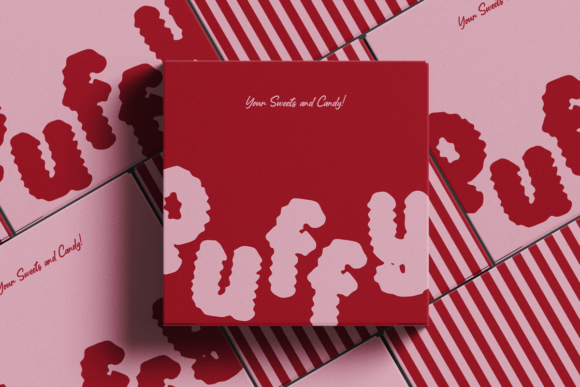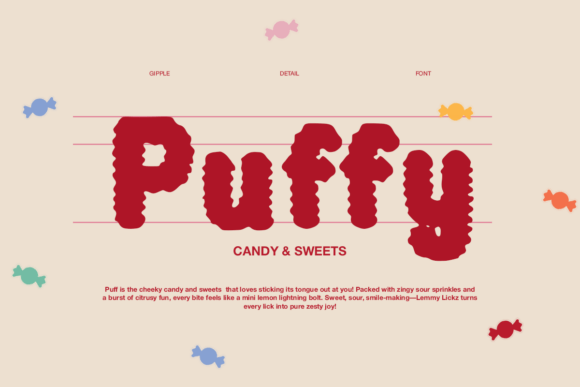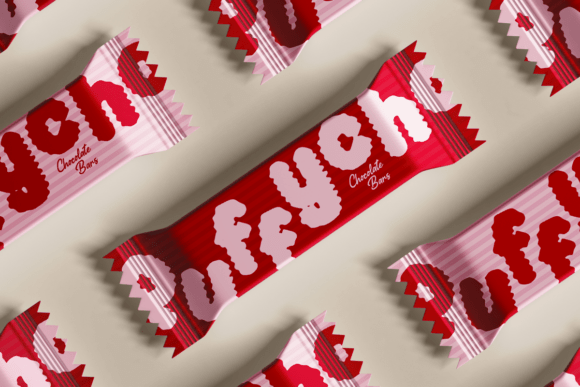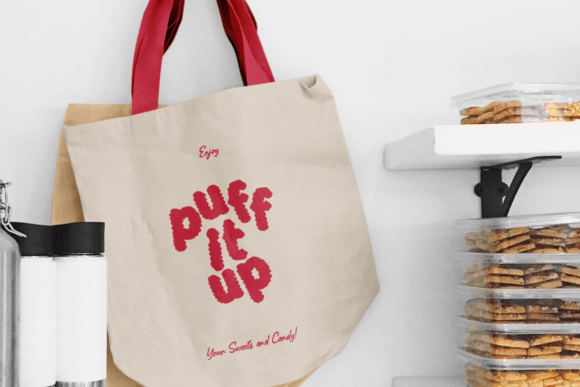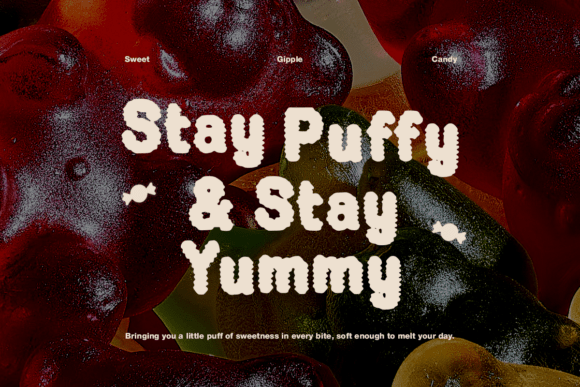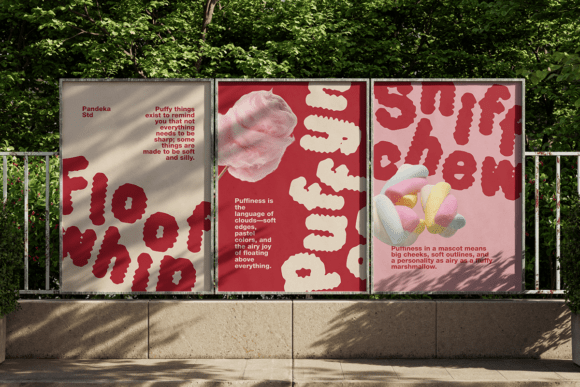
The Sweet Spot: Discovering Gipple Font
I still remember the design project that led me to Gipple Font. I was working on a branding campaign for a new candy store, and I needed a font that would capture the fun, playful essence of their products. I scoured the internet, tried out countless fonts, but none seemed to nail the vibe I was looking for – until I stumbled upon Gipple. Its chewy, gummy texture and bold, irregular shapes instantly resonated with the brand’s sweet and youthful personality. I knew right then that Gipple was the perfect fit.
An Honest Review of Gipple Font
- ✨ Unique texture: Gipple’s gummy texture adds a delightful visual interest to any design.
- ✅ Playful feel: The font’s soft, bouncy shapes evoke a sense of fun and joy, perfect for candy branding, kids’ products, and playful packaging.
- 👍 Easy to read: Despite its bold and irregular shapes, Gipple remains surprisingly legible, even at smaller sizes.
- 💡 Versatile: This font can be used for a wide range of projects, from social media posts to posters, stickers, and more.
While Gipple is an amazing font, it’s not without its quirks. For instance:
- 🤔 Limited style options: Gipple currently comes in only one bold, regular style, which might limit its use for projects requiring multiple font weights.
- ⚠️ Not suitable for body text: Due to its bold and playful nature, Gipple might not be the best choice for lengthy body text.
The Designer Inspiration Behind Gipple
Gipple’s creator was inspired by the whimsical world of gummy snacks and sweets. They wanted to capture the fun, playful essence of these treats in a font that would bring joy to designers and their clients. The result is a unique, chewy font that’s sure to add a sweet touch to any design.
Q: What type of projects is Gipple best suited for?
A: Gipple is perfect for candy packaging, kids’ products, social media posts, posters, stickers, branding, and any project that needs a fun and delicious touch.